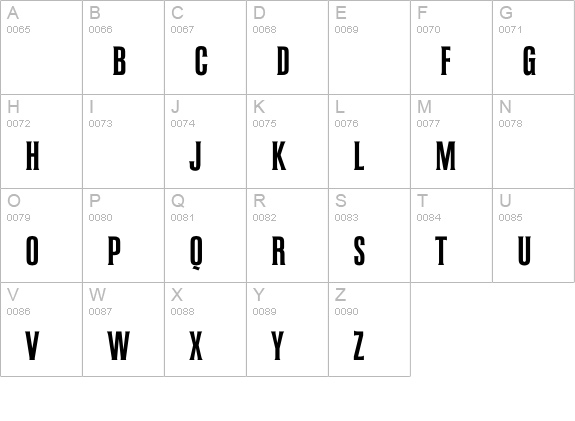
ColiseumMedium Font Details
ColiseumMedium font is a bold and stylish typeface that exudes a sense of grandeur and timelessness. Its strong, robust letterforms make a powerful statement, making it ideal for headlines, titles, and branding projects. The classic elegance of ColiseumMedium font is perfect for adding a touch of sophistication to any design. What makes ColiseumMedium font even more appealing is that it is available for free download at FontsMarket.com. This means you can easily access this stunning font for your projects without any cost. Don't miss out on the opportunity to enhance your designs with the striking beauty of ColiseumMedium font, now freely available for you to use.